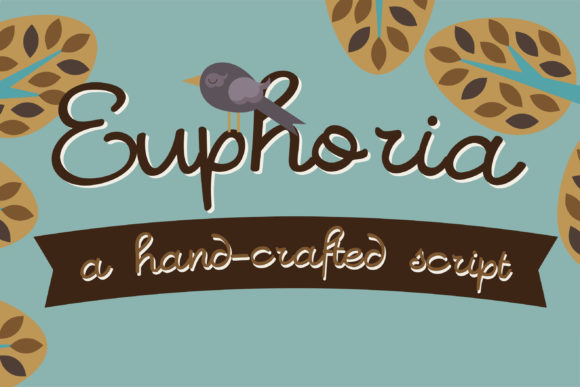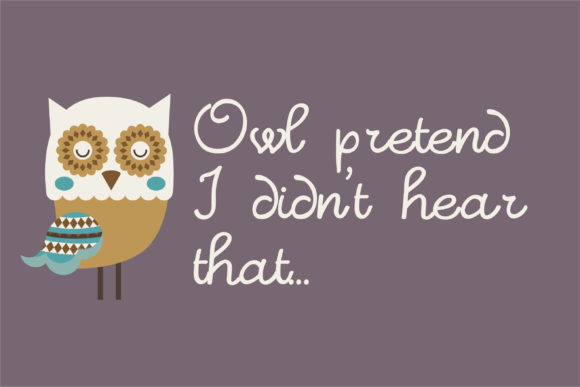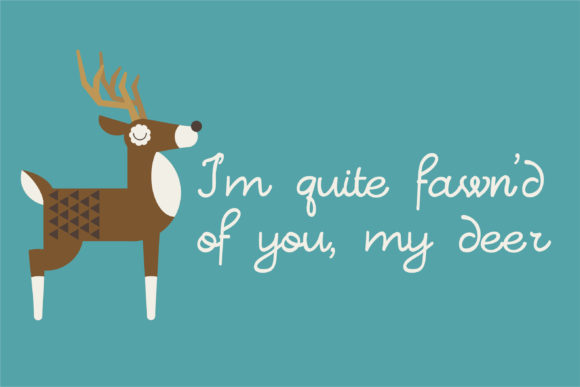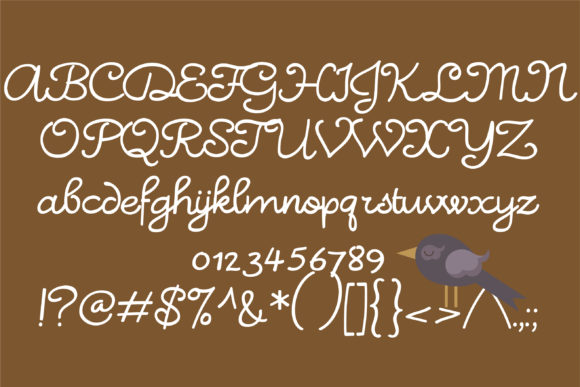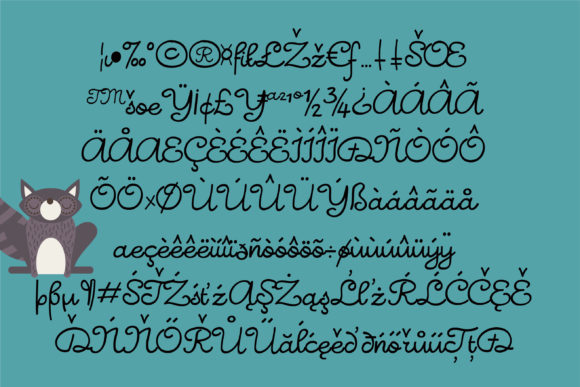
HomeScript FontsEuphoria Font Script Fonts Euphoria Font FacebookXPinterestWhatsApp Euphoria Font Poster 2 Euphoria Font Poster 3 Euphoria Font Poster 4 Euphoria Font Poster 5 About Euphoria Font This hand-crafted script has a casual feel to it. It’s great to add a home-made touch to projects. DOWNLOAD NOW People also explored Natalle Font Bidadari Syurga Font Butterfry Font Amania Signature Font Grinches Font Mandala Handmade Font Hoogy Font Creative Font Happy Mom Font 423 0 TagsEuphoria Font Previous articleHomegirl Holiday FontNext articleButter Peanut Font LEAVE A REPLY Cancel reply Comment: Please enter your comment! Name:* Please enter your name here Email:* You have entered an incorrect email address! Please enter your email address here Website: Save my name, email, and website in this browser for the next time I comment. Personal Use Free Cheese Matcha Font Personal Use Free Read more about this font Miss Love Personal Use Free Read more about this font Roland Personal Use Free Read more about this font Stronger Personal Use Free Read more about this font BLOG Fonts That Capture the Spirit of New York City New York City is more than just a place—it’s an experience, a rhythm, a visual language... To increase your work productivity, choose the most readable fonts. Free Fonts Risk: Why Free Fonts Can Be Dangerous for Designers Top 10 Handwritten Fonts That Elevate Your Designs